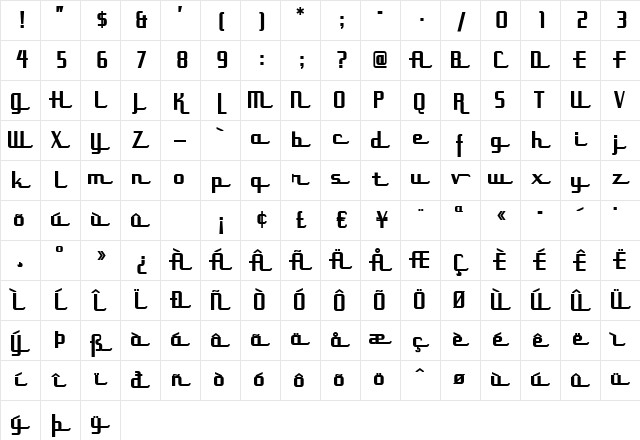
UppenArmsNF Medium
Foundry: Nick's Fonts
Designer: Nick Curtis
Design Context for UppenArmsNF
UppenArmsNF is a composed and adaptable typeface that performs quietly and consistently across a wide range of design contexts.